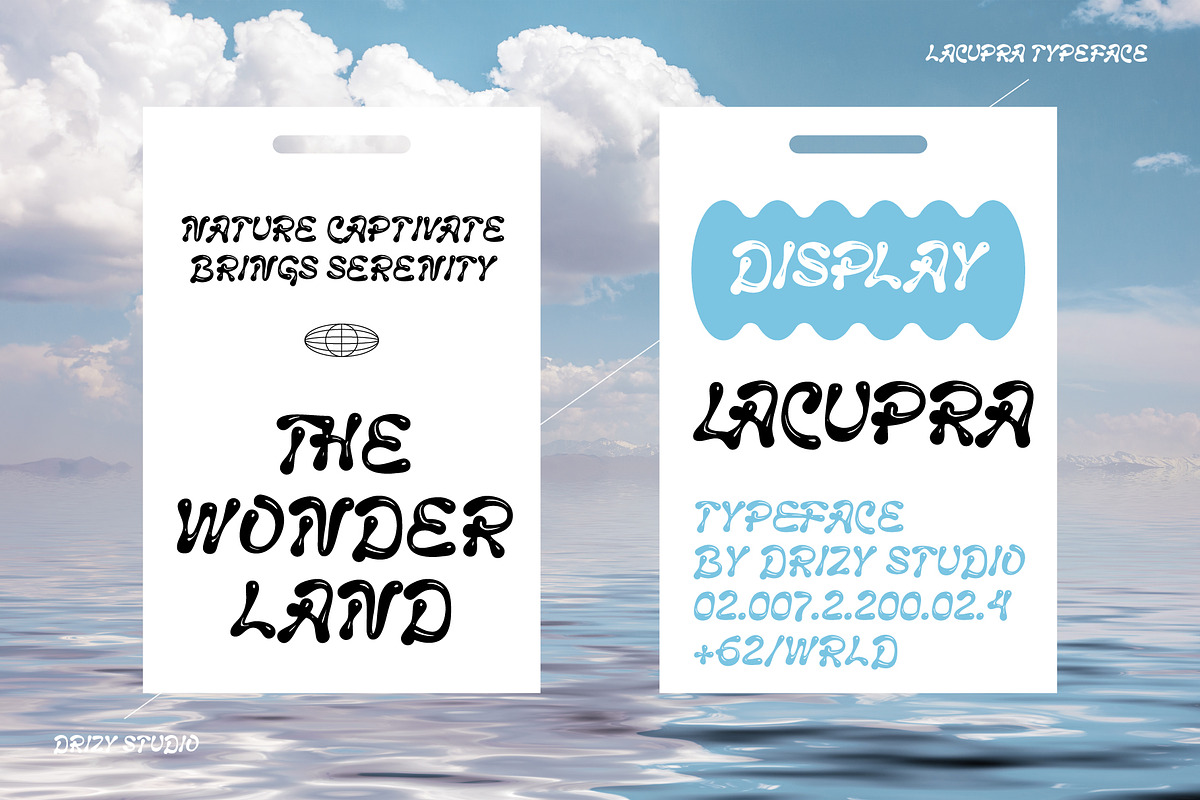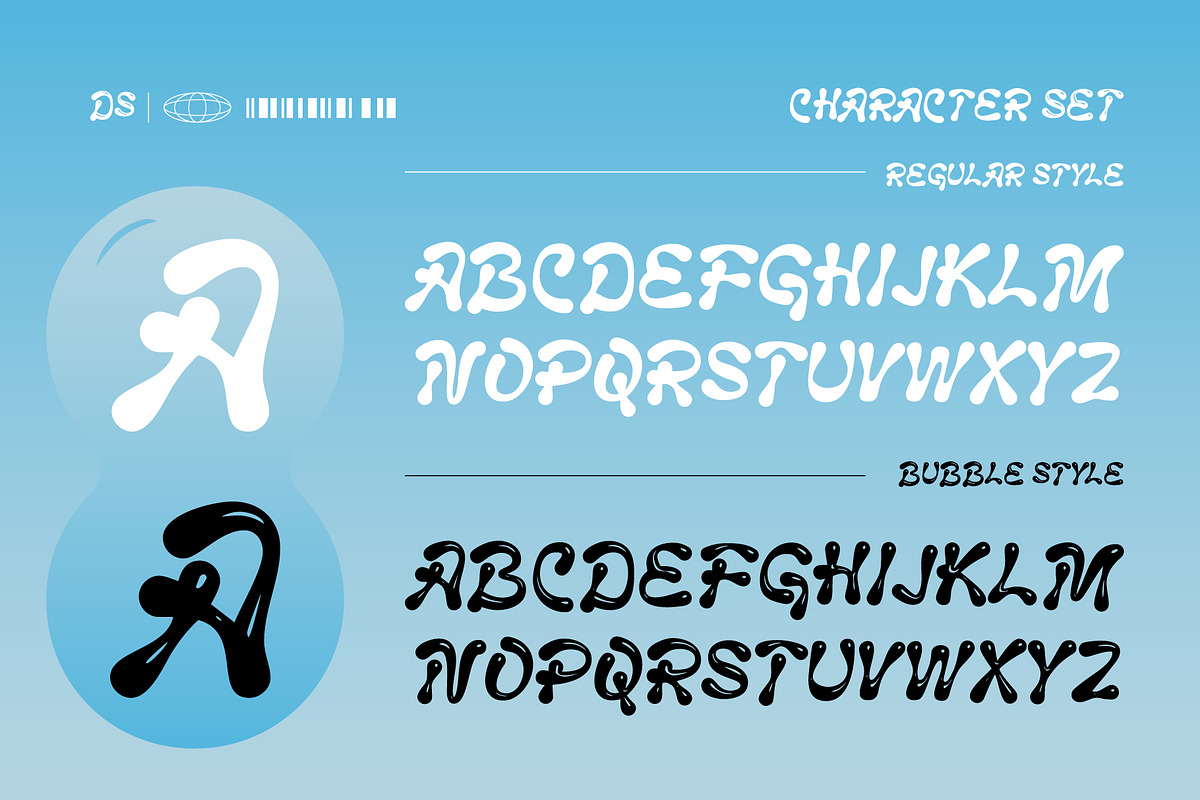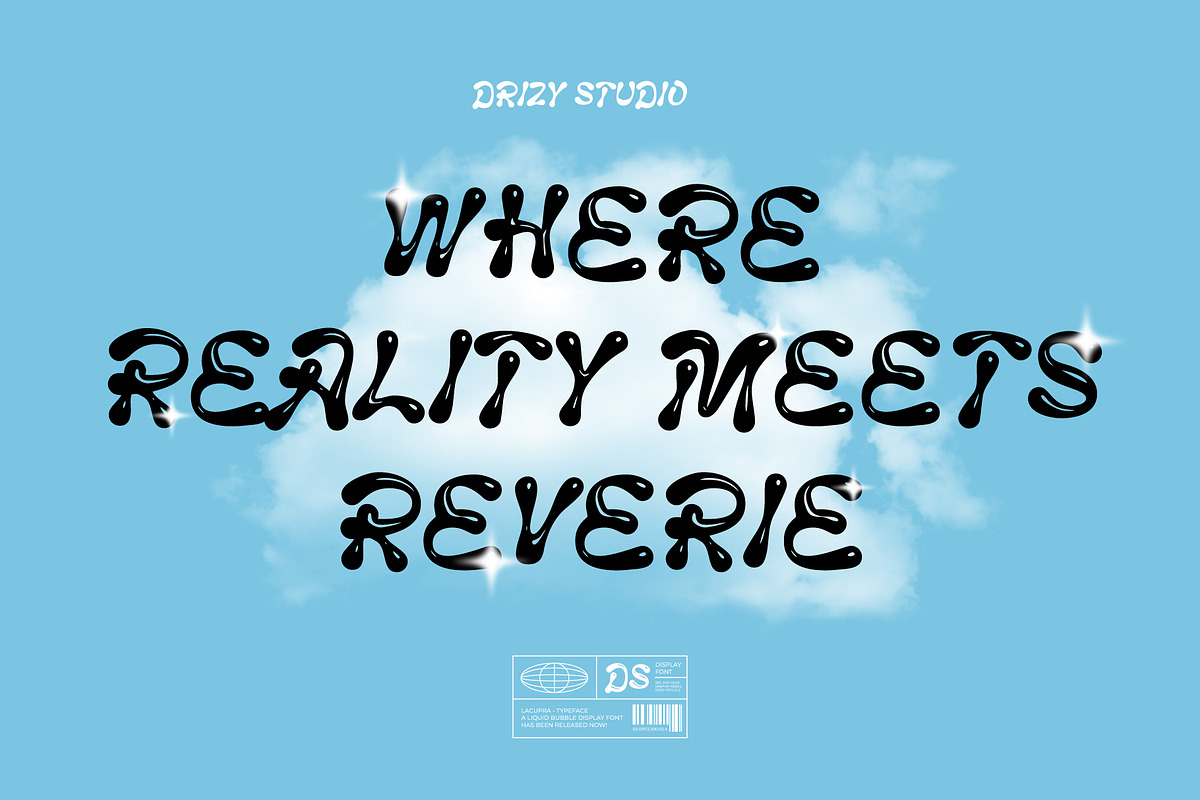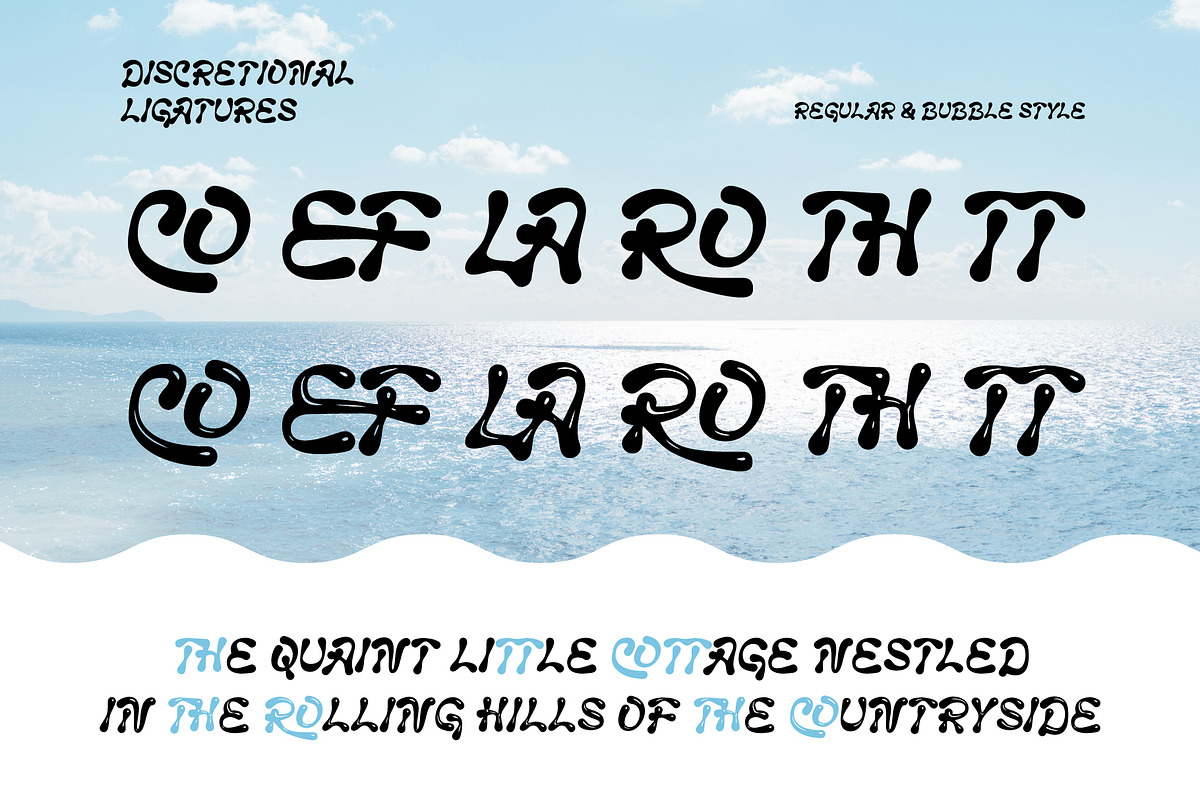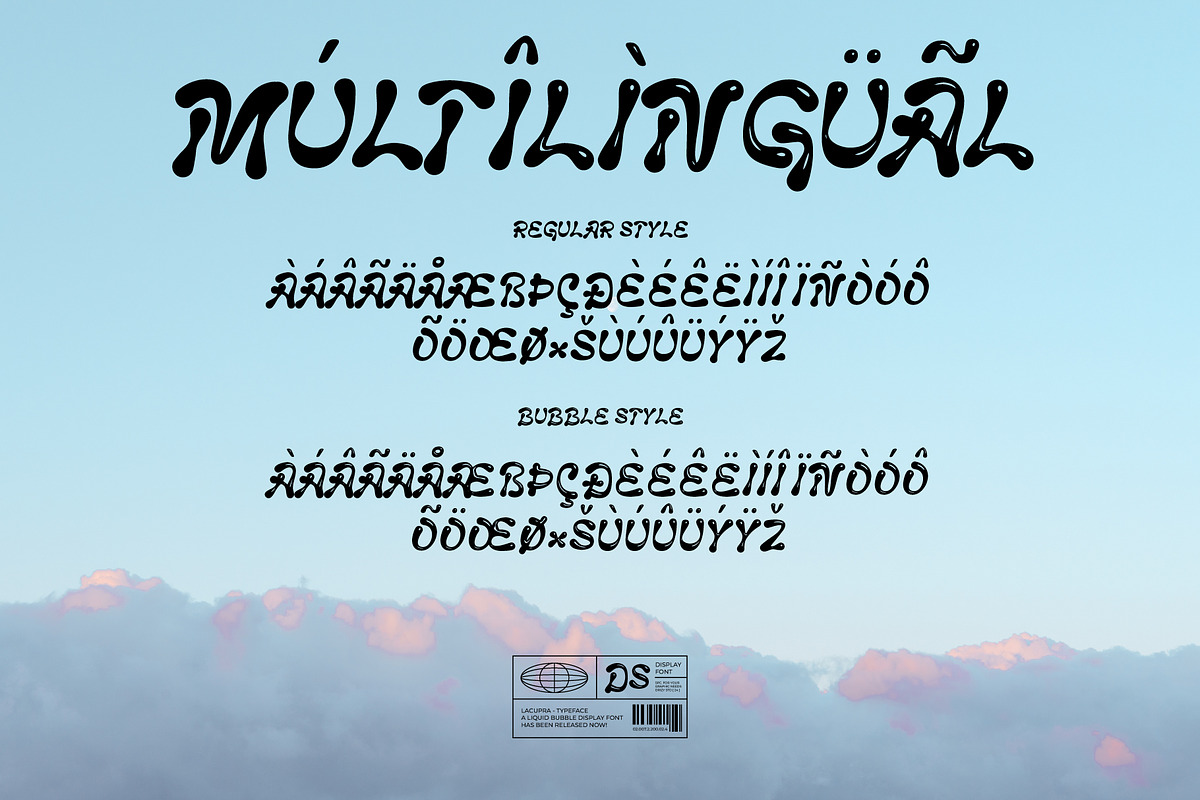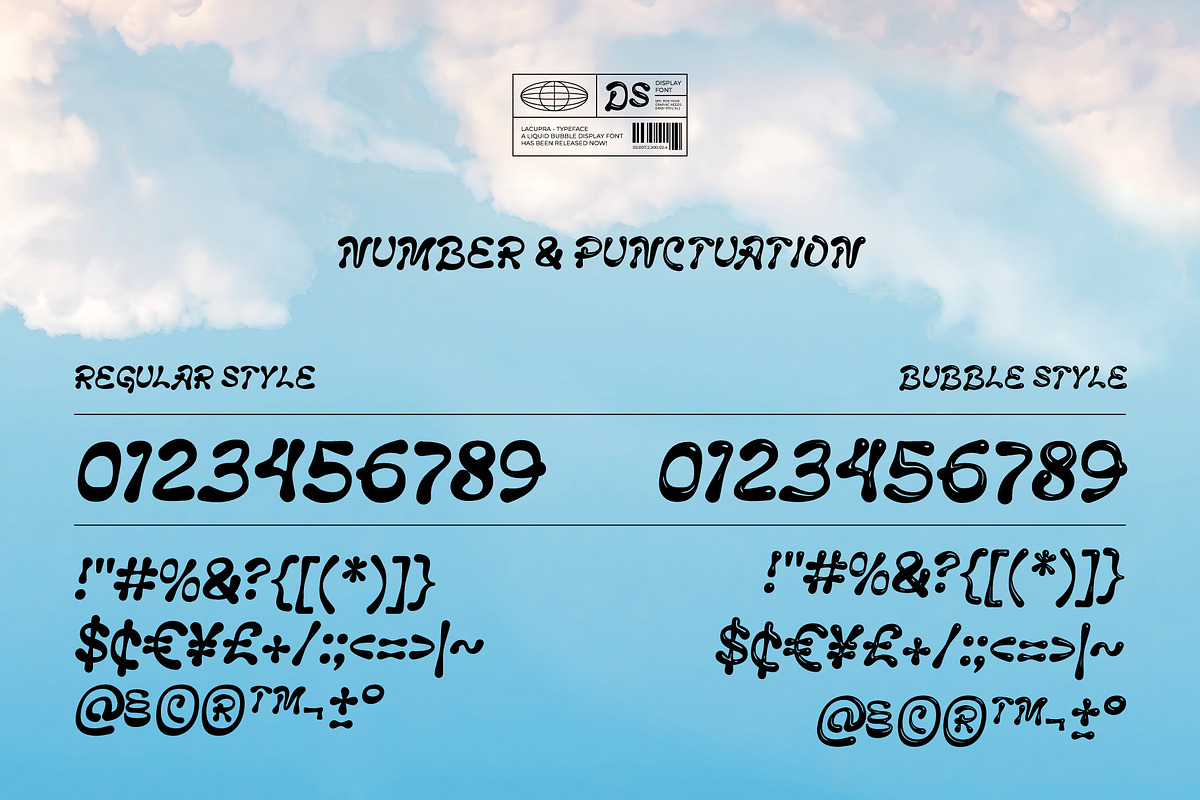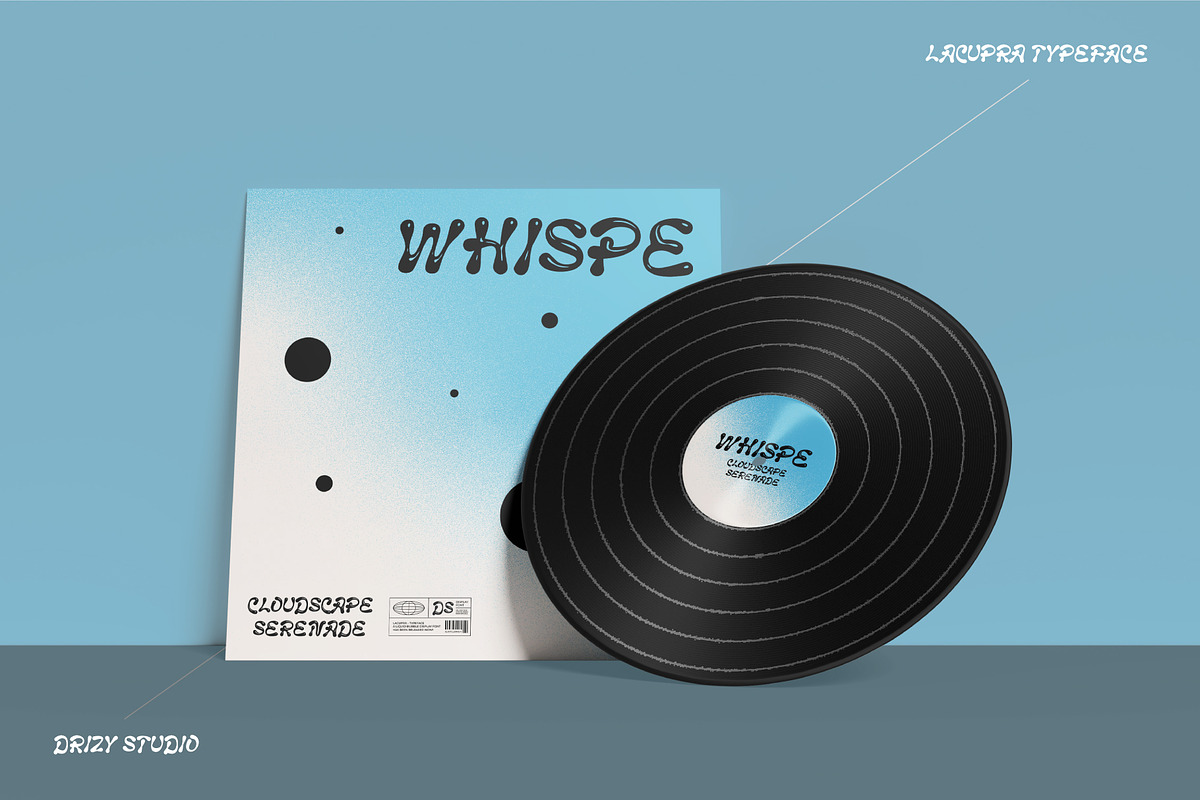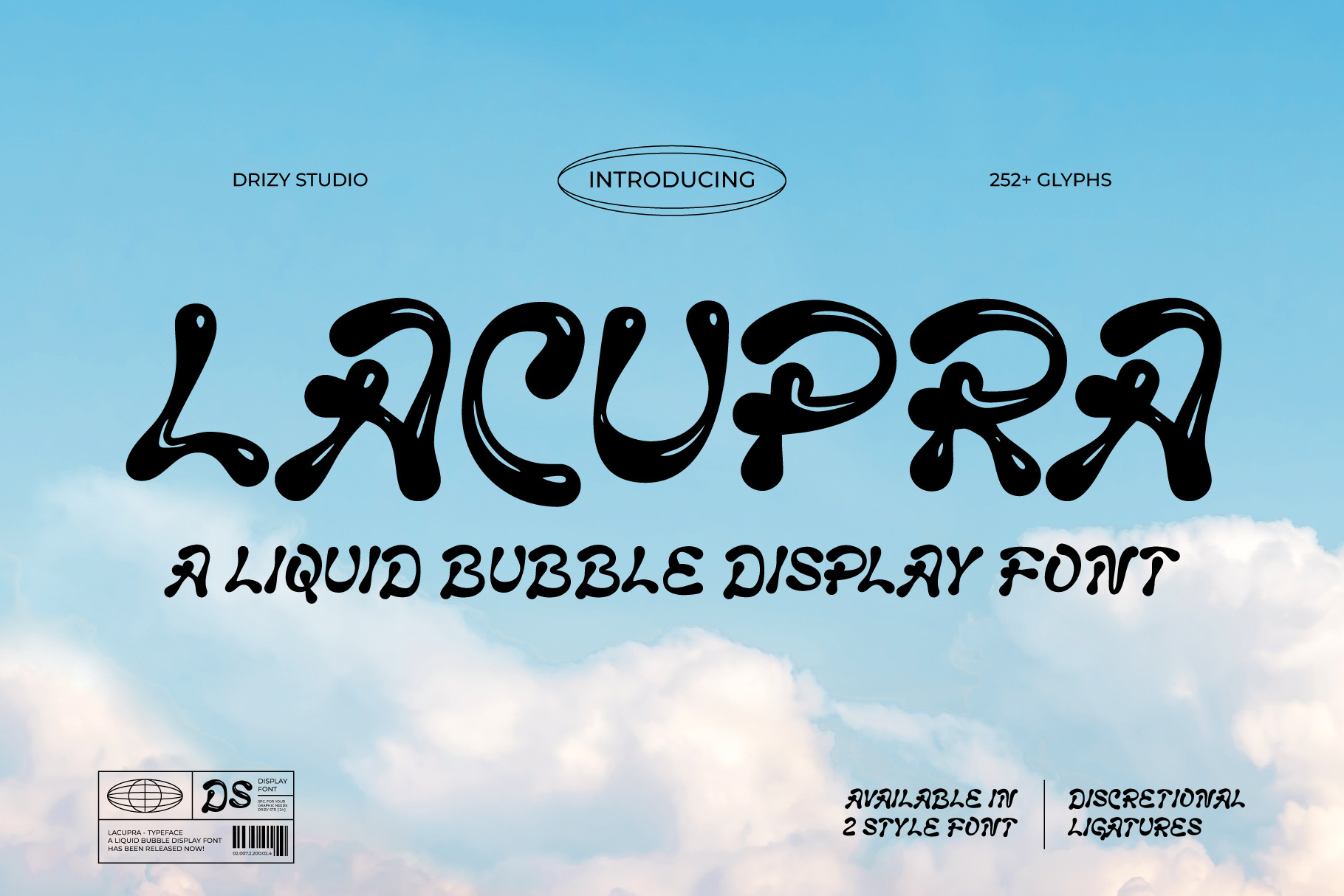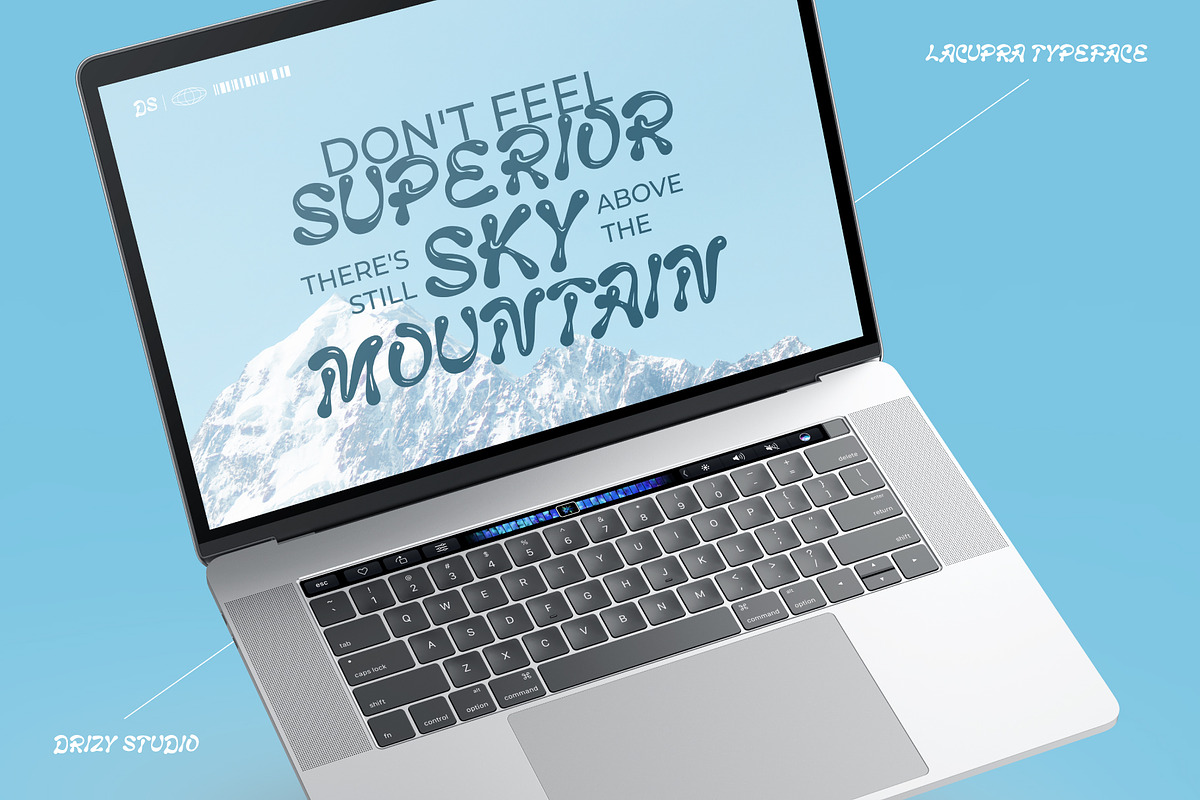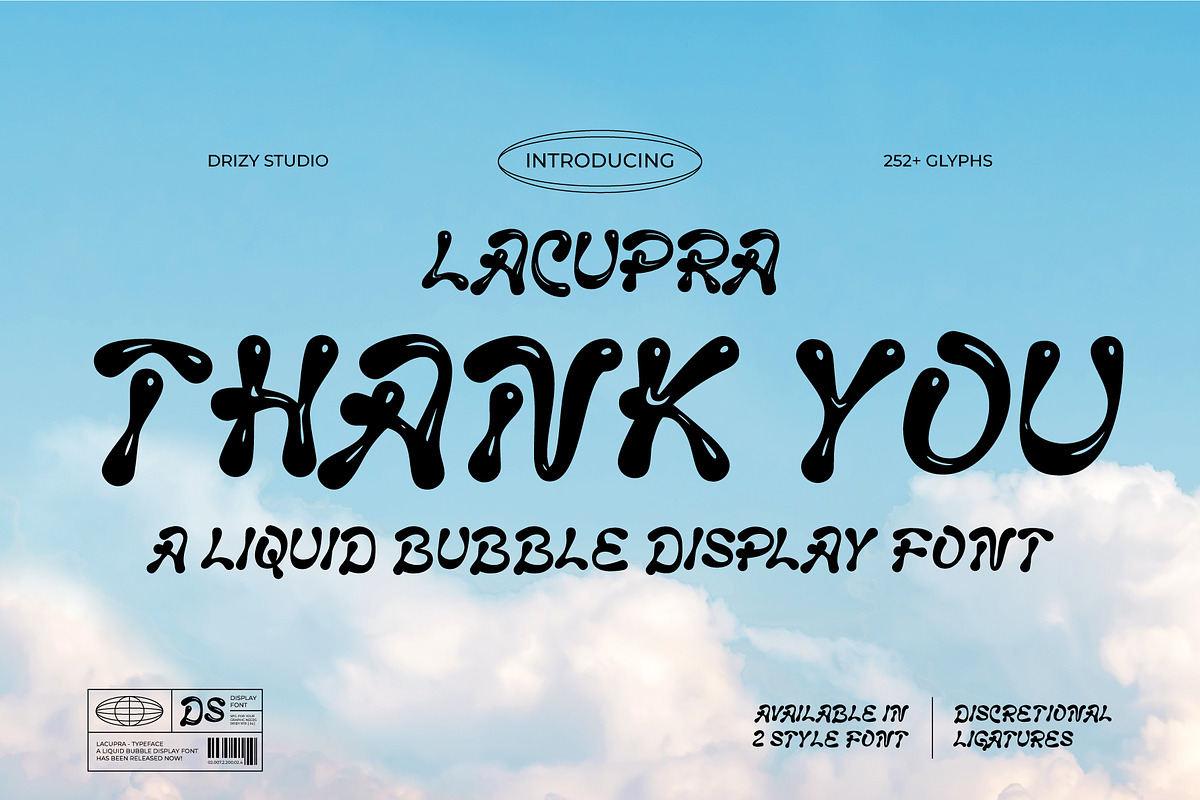
Lacupra - Liquid Bubble Display Font
Introducing Lacupra - Liquid Bubble Display Font, a captivating and versatile typeface that adds a touch of fluidity and dreamy aesthetic to your design projects. Inspired by the playful elegance of liquid bubbles, Lacupra brings a unique and modern twist to your creative endeavors.
Lacupra features: Character Set Variable: Regular & Bubble Style Punctuation & Numbers Multilingual Ligatures
Elevate and explore the design possibilities with this bubble font!